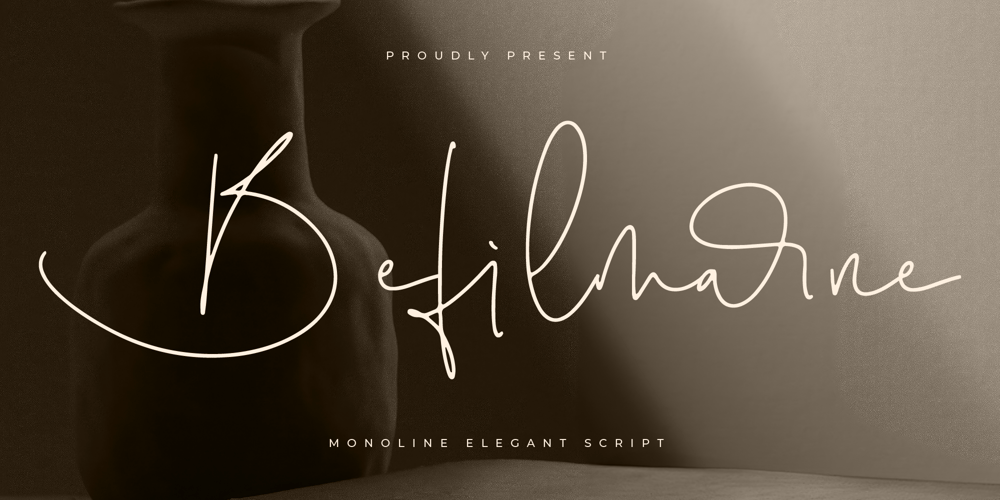
Befilmarne Font Family was designed by Heru Utama Putra and published by Letterena Studios. Befilmarne contains 2 styles and family package options. Befilmarne – Monoline Elegant Script , from Letterena, is a Luxury Script font, suitable for any projects such as: logos, branding projects, homeware designs, product packaging, mugs, quotes, posters, shopping bags, t-shirts, book covers, name card, invitation cards, greeting cards, label, photography, watermark, special events, and all your other luxury and beautiful projects that need a Luxury serif taste.